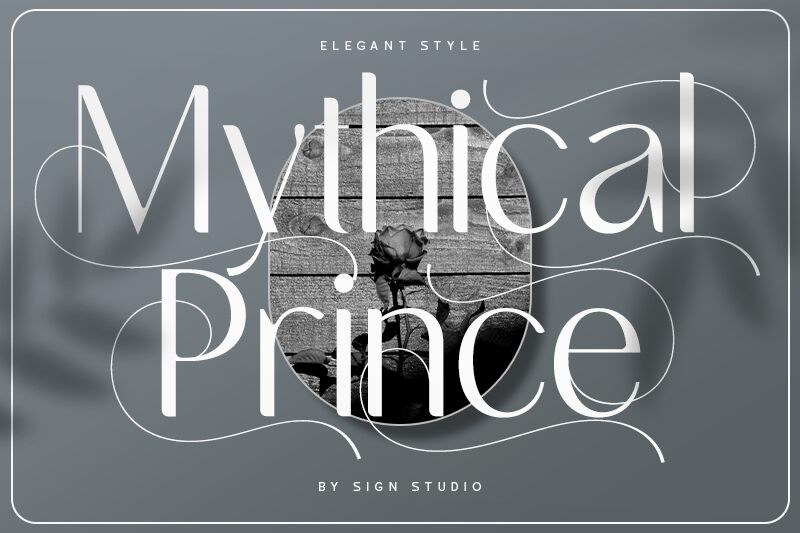
Mythical Prince, a captivating creation by Sign Studio, is a mesmerizing sans serif font that effortlessly blends elegance with modernity. With its semi-light weight, this font exudes an air of sophistication and refinement. Perfect for branding projects that demand a touch of enchantment, Mythical Prince adds a dash of magic to luxury fashion labels, high-end beauty products, and whimsical book covers. Its clean lines and legibility make it equally suitable for professional presentations, minimalist websites, and sleek user interfaces. Unleash the allure of Mythical Prince to captivate your audience in diverse design ventures.
Mythical Prince
Mythical Prince Font Family by Sign Studio